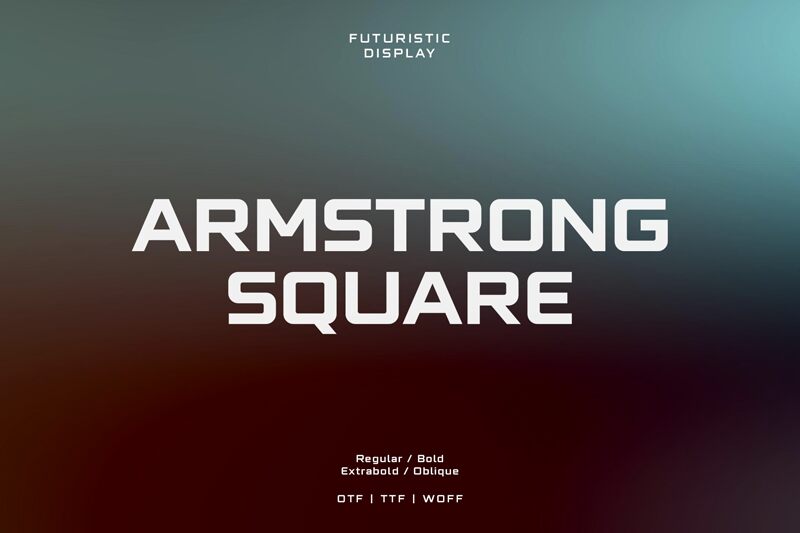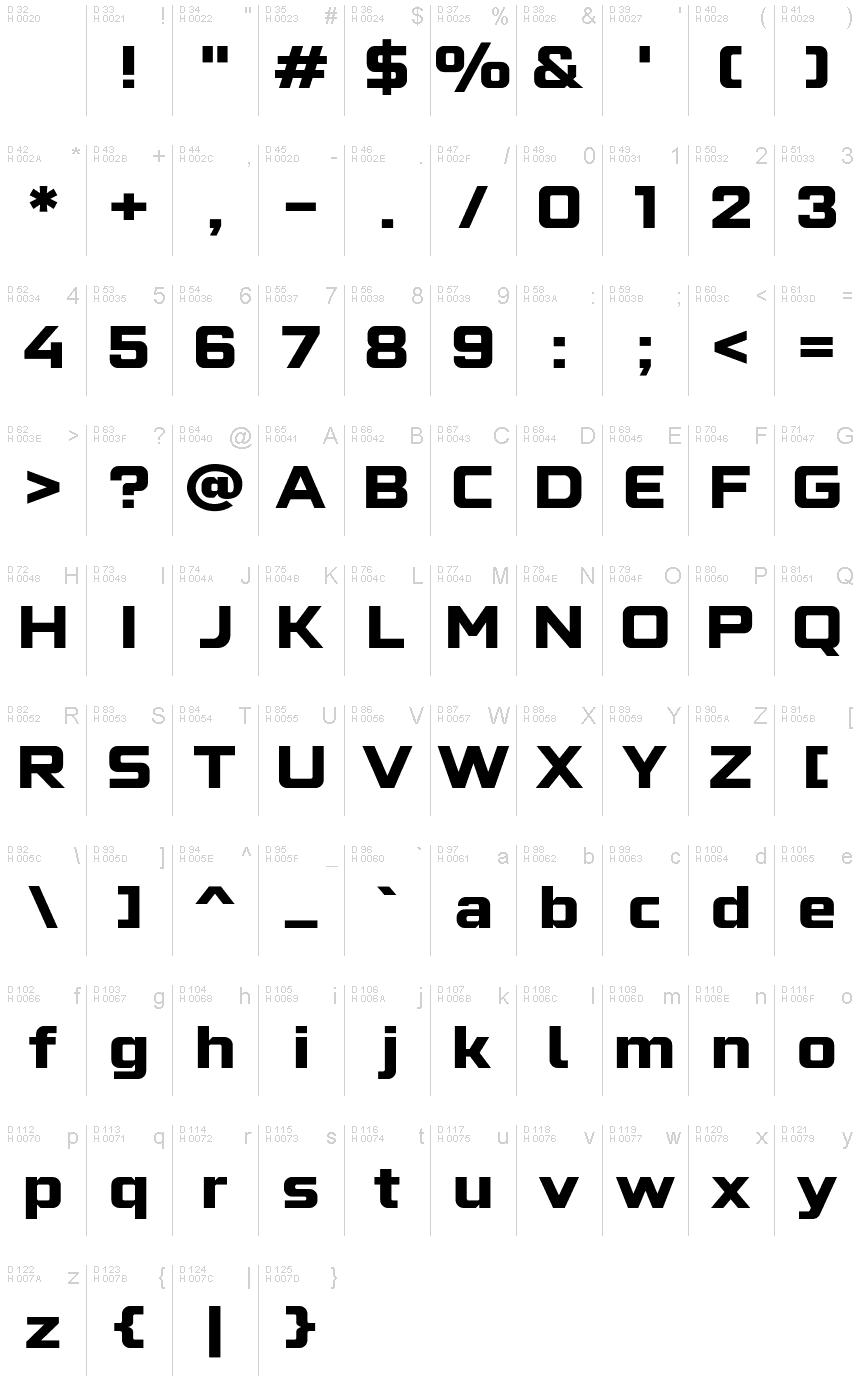
Armstrong Extrabold font is a futuristic sans serif typeface designed by
Typologic.
Made for you lovers of modern typefaces, Armstrong comes with a unique and strong style. Based on the square shape that makes this font look consistent but not too stiff. Armstrong carries a strong message making it suitable as a title text or sub text. Comes with three weights as well as an italic version, alternate characters are also added to suit your project.